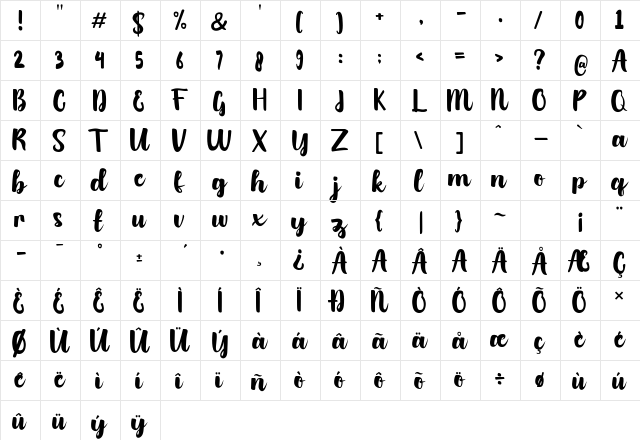
Austhatic Script Regular
| Designer | Fandi Ahmad |
Design Context for Austhatic Script Typeface
Austhatic Script flows with the natural rhythm of handwritten lettering, making it ideal for designs that call for warmth and personal expression.
Font Pairing: Combine Austhatic Script with a simple geometric sans for maximum contrast — the tension between flowing curves and clean structure is a classic typographic pairing.
Pro Tip: Pair Austhatic Script with a clean sans-serif for supporting text. The contrast between fluid script and geometric structure creates an elegant typographic hierarchy.